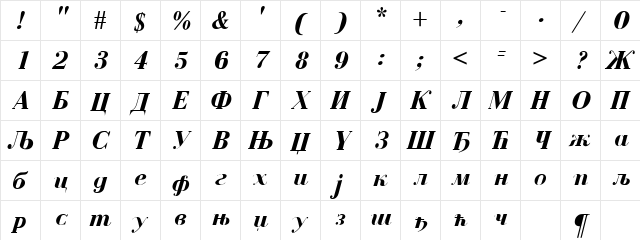
Czar Cirilica Bold Italic
Czar Cirilica is a composed and adaptable typeface that performs quietly and consistently across a wide range of design contexts. The dynamic lean of this cut emphasises speed and emphasis in any layout. Its bold stroke weight gives it real presence on the page.